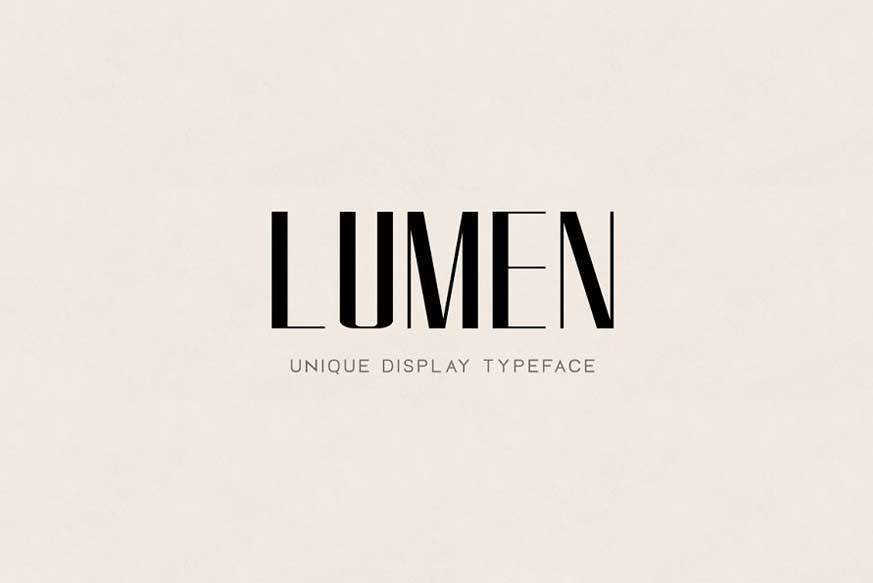
LUMEN Display Headline Typeface
LUMEN, a truly unique all-caps display typeface inspired from retro design patterns and branding inspirations. The typeface is perfect for headlines, big text, branding, logotypes & display usage.
This font is also perfect for creating outstanding logos, promotional content and marketing graphics that can really grab attention from your visitors